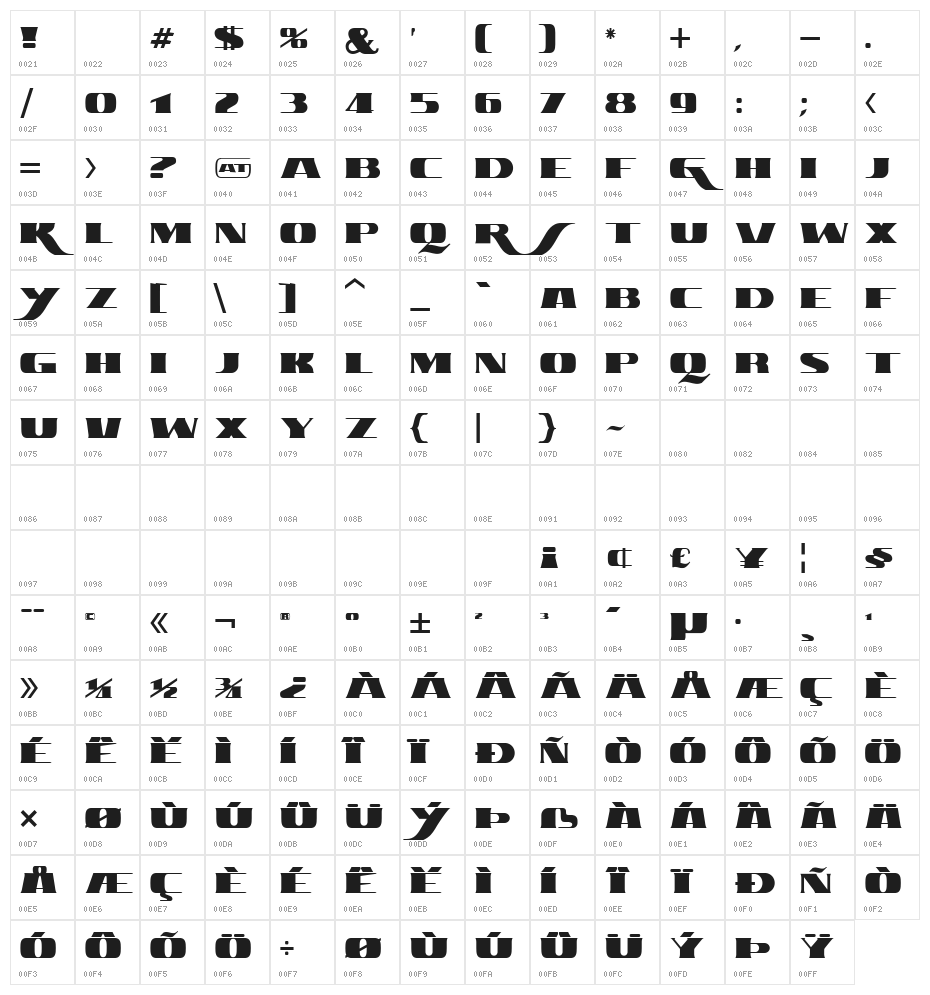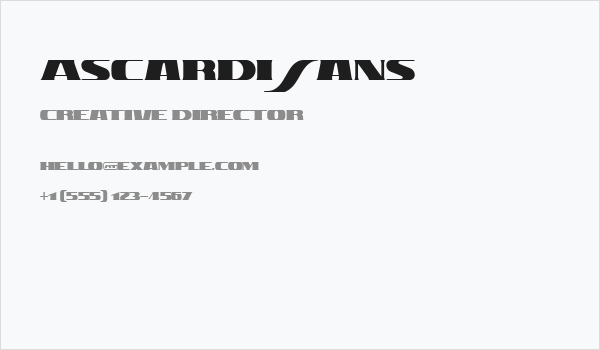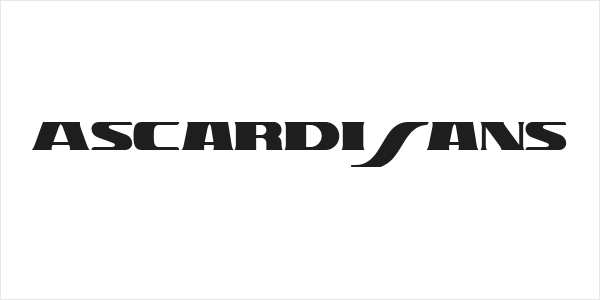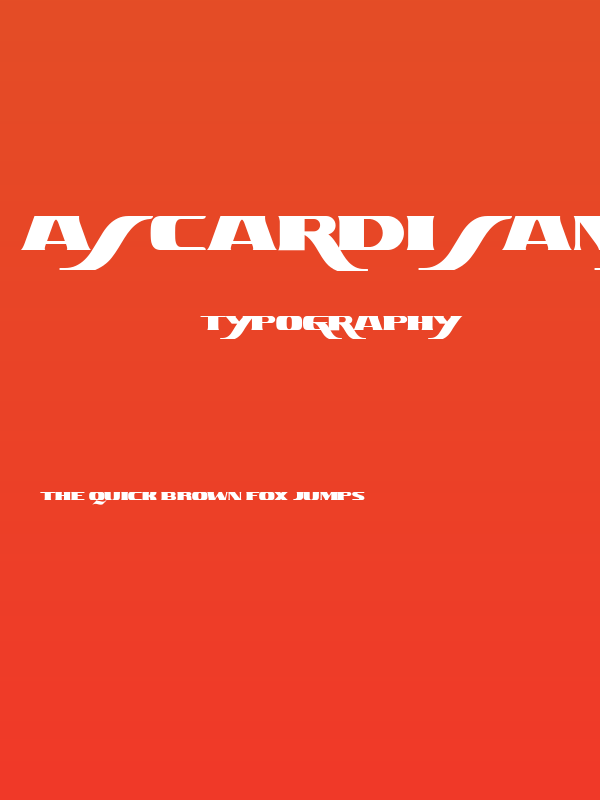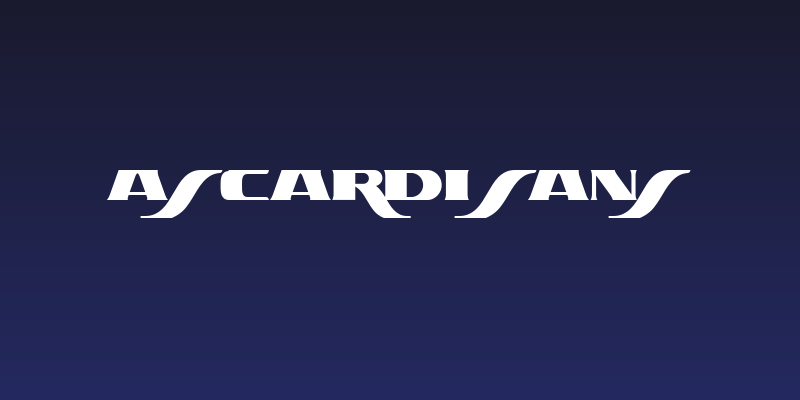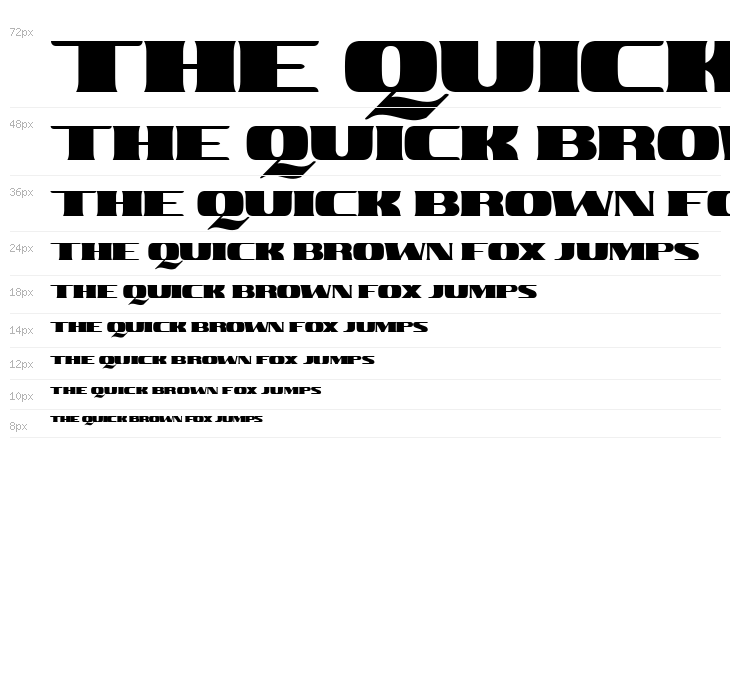
Ascardi Sans Font
Ascardi Sans Description
This font exhibits a bold and dynamic style with a futuristic flair. The uppercase letters are characterized by sharp angles and unique cuts, giving them a distinctive and aggressive appearance. The lowercase letters maintain a similar aesthetic, ensuring consistency across the typeface. The numbers are bold and clear, making them highly legible. Special characters are designed with the same boldness and angularity, ensuring they stand out. Overall, the font conveys a sense of modernity and strength, making it suitable for impactful designs.